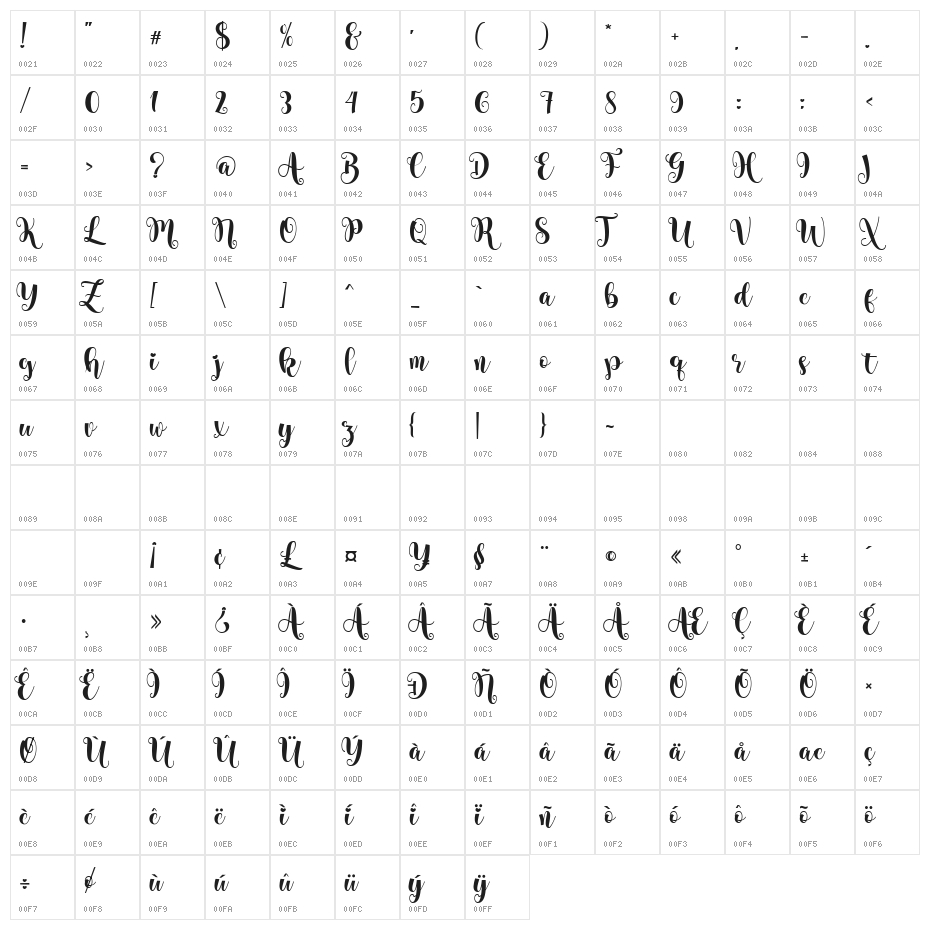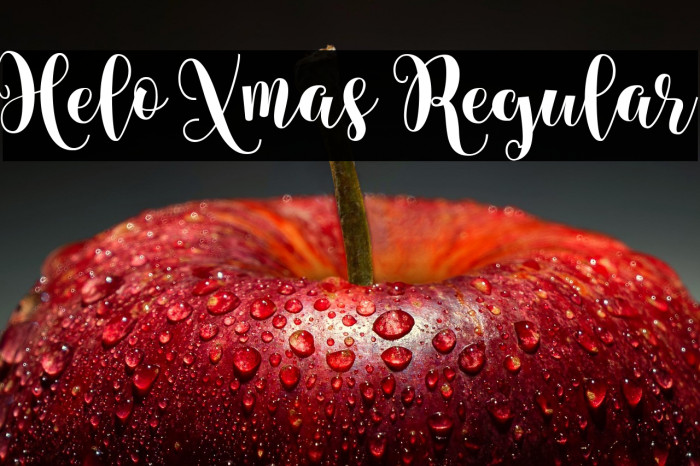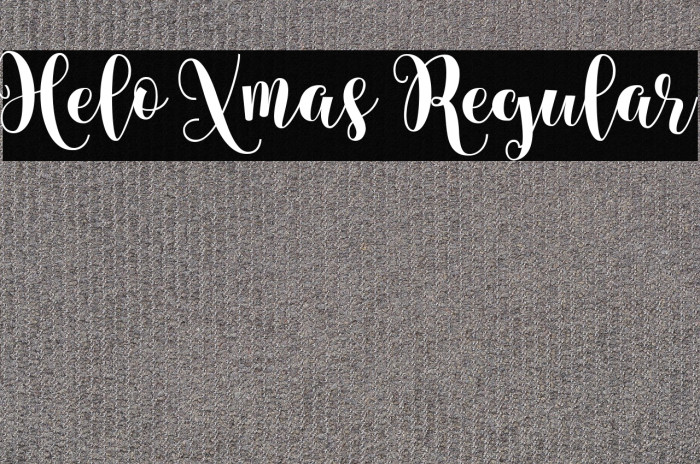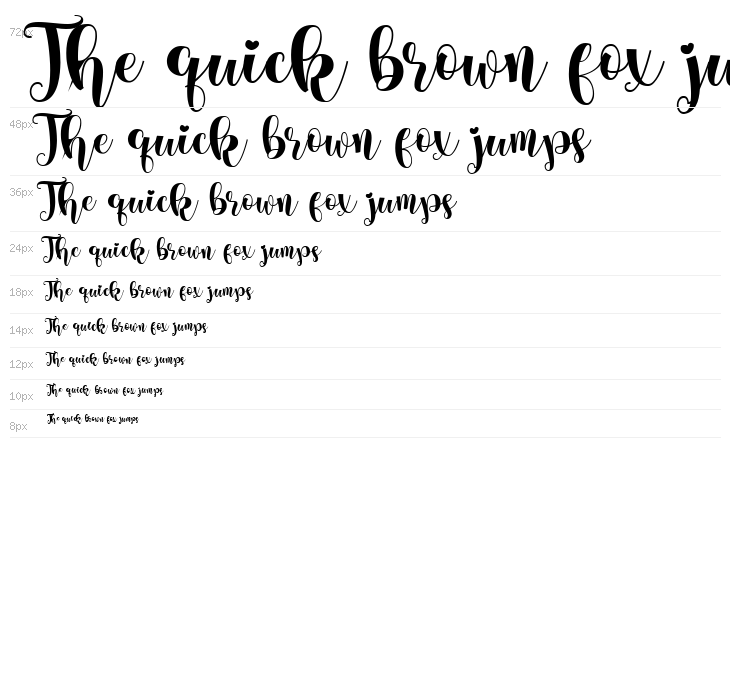
Helo Xmas Regular Font
Helo Xmas Regular Description
This font features an elegant and festive script style, characterized by its flowing, cursive letterforms with elaborate swashes and loops. The uppercase letters are particularly ornate, with dramatic flourishes that give a sense of movement and grace. The lowercase letters maintain a consistent style, with smooth curves and a playful yet sophisticated appearance. The numerals and special characters are designed to match the overall aesthetic, ensuring a cohesive look across all text. This font is perfect for adding a touch of elegance and festivity to any design project.